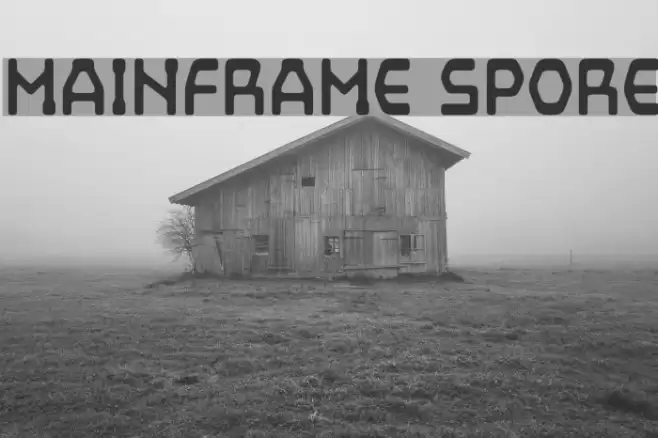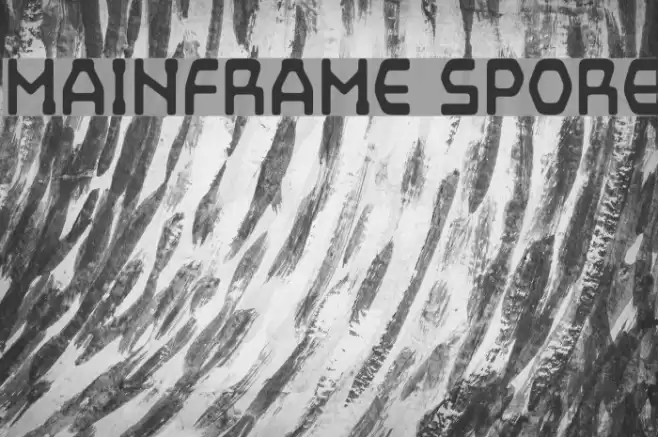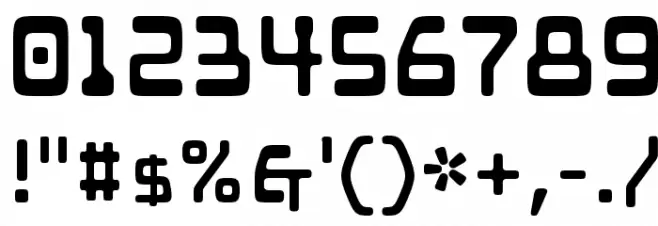
Mainframe Spore Font
Mainframe Spore Description
This font features a futuristic and bold design with rounded edges and a geometric structure. The characters are uniformly thick, giving a consistent and solid appearance. The uppercase and lowercase letters maintain a cohesive style, with a slight variation in size and shape to distinguish them. Numbers and special characters follow the same design principles, ensuring a harmonious look across all glyphs. The font's unique style is both modern and slightly retro, reminiscent of digital or sci-fi themes.
A futuristic, bold font with rounded edges and a geometric design from Uncategorized fonts.
- Proposed Projects: Ideal for tech-related branding, sci-fi movie posters, video game titles, and digital interfaces.